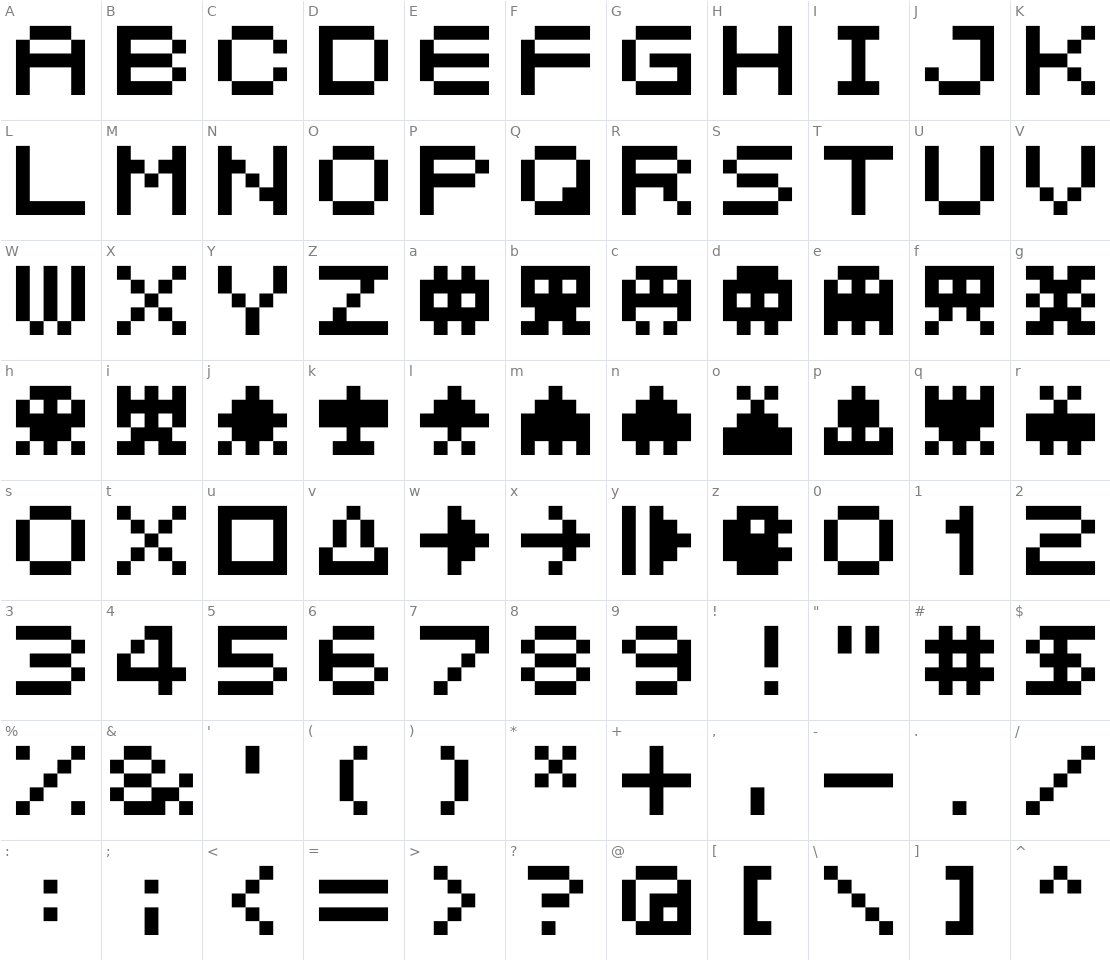
04b_21
04b_21 is a heavy, blocky pixel font from the prolific 04 foundry, whose bitmap typefaces became staples of early web and indie game design. The letterforms are thick and geometric with no anti-aliasing or softness, giving it that raw, low-resolution weight you'd expect from 8-bit era interfaces. Best for headlines, game UI, and digital displays where chunky retro charm needs to hit with real density.